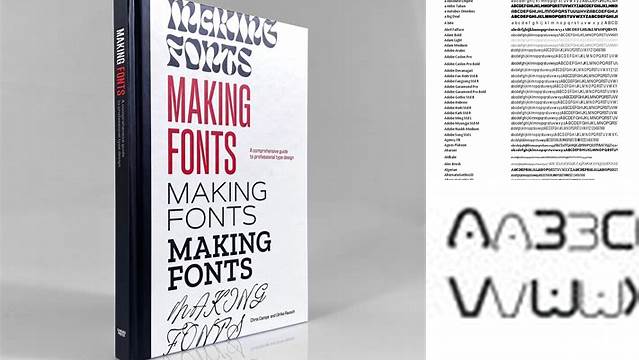
Fonts In Alphabetical Order: A Comprehensive List
Introduction: Exploring the World of Fonts
Hey guys! Let's dive into the fascinating world of fonts, shall we? Fonts are more than just letters; they're the voice of your text, the personality of your design, and the key to grabbing your audience's attention. This comprehensive guide will walk you through an extensive list of fonts in alphabetical order, offering insights into their styles, uses, and the stories they tell. Whether you're a seasoned designer, a budding creative, or just font-curious, this article is your ultimate resource. Understanding the basics of typography and font selection can significantly impact how your message is received. The right font can convey professionalism, elegance, playfulness, or any other desired emotion. From classic serifs to modern sans-serifs, each font has its unique character and purpose. In this guide, we'll not only list fonts alphabetically but also provide context on their typical applications, design principles, and historical backgrounds. So, grab a cup of coffee, get comfortable, and let's embark on this font-astic journey together! We'll uncover hidden gems, revisit old favorites, and explore the subtle nuances that make each font special. By the end of this guide, you'll have a deeper appreciation for the art of typography and be better equipped to make informed font choices for your projects. We'll also touch on practical aspects such as font licensing, pairing fonts effectively, and resources for discovering new fonts. Let's get started and unlock the power of fonts!
A-Fonts
Arial: The Universal Sans-Serif
Arial, a ubiquitous sans-serif font, is often the first name that comes to mind when discussing fonts. Arial is known for its clean and straightforward design, making it highly legible across various platforms and sizes. This font's versatility stems from its neutral appearance, which doesn't impose a strong personality on the text, allowing the content to speak for itself. Arial's history is intertwined with the digital age; it was developed in the 1980s to accompany the rise of personal computers and digital typesetting. Its design is influenced by earlier sans-serif fonts like Helvetica, but it has distinct characteristics that set it apart. Arial's letterforms are slightly wider and fuller, giving it a more open and accessible feel. This font is a workhorse in the design world, frequently used in body text, headings, and digital interfaces. Its widespread availability and compatibility make it a safe and reliable choice for projects ranging from websites to documents to presentations. However, Arial's ubiquity also means it can sometimes be perceived as generic or lacking in character. Designers often seek alternatives to Arial to inject more personality and visual interest into their work. Despite this, Arial remains a staple due to its readability and broad support across different systems. When choosing Arial, consider its strengths: clarity, neutrality, and universal accessibility. It's an excellent option when the message's legibility and clarity are paramount. While it may not be the most exciting font, its practicality and reliability make it a valuable tool in any designer's arsenal. In summary, Arial is a solid, dependable choice that excels in situations where clarity and cross-platform compatibility are crucial. Its simplicity makes it a blank canvas, allowing the content to shine through without being overshadowed by the font's design.
Avant Garde Gothic: A Geometric Beauty
Avant Garde Gothic is a distinctive sans-serif font characterized by its geometric forms and clean lines. Avant Garde Gothic stands out with its modernist aesthetic, making it a popular choice for logos, headlines, and display typography. This font's origins trace back to the 1970s when it was designed for the logo and magazine of the Avant Garde magazine. Its unique letterforms, featuring perfect circles and straight lines, give it a futuristic and stylish appearance. Avant Garde Gothic exudes a sense of sophistication and precision, making it suitable for projects that require a contemporary and minimalist look. Its geometric shapes lend themselves well to creating strong visual impact, particularly in headlines and branding materials. However, Avant Garde Gothic's distinctive style may not be ideal for extensive body text, as its geometric forms can become tiring to read in large blocks. Designers often use it sparingly to highlight key elements and create visual interest. The font's various weights and styles offer versatility, allowing designers to create visual hierarchy and add depth to their designs. Its condensed versions are particularly useful for space-constrained layouts, while its bolder weights command attention. Avant Garde Gothic's impact on graphic design is significant, influencing the development of numerous geometric sans-serif fonts. Its modernist aesthetic continues to resonate with designers who seek a clean and contemporary look. When using Avant Garde Gothic, consider its geometric nature and how it interacts with other design elements. It pairs well with fonts that offer contrast, such as classic serif fonts or more organic sans-serifs. In conclusion, Avant Garde Gothic is a stylish and impactful font that's perfect for projects where a modern, geometric aesthetic is desired. Its unique letterforms and clean lines make it a standout choice for logos, headlines, and display typography.
B-Fonts
Bebas Neue: The Tall and Handsome Sans-Serif
Bebas Neue is a popular sans-serif font celebrated for its tall and narrow letterforms, exuding a modern and streamlined aesthetic. Bebas Neue's distinct vertical emphasis makes it ideal for headlines and titles, where its height commands attention and creates a strong visual impact. Initially designed as a free font, Bebas Neue has gained widespread recognition and is now a favorite among designers seeking a contemporary, condensed typeface. Its clean lines and geometric shapes give it a sophisticated appearance, making it suitable for a wide range of applications, from web design to print materials. Bebas Neue's narrow width allows for efficient use of space, making it particularly useful in layouts where maximizing content within a limited area is crucial. This font's versatility is further enhanced by its various weights, providing options for creating visual hierarchy and adding depth to designs. Its bold weights make headlines pop, while its lighter weights offer a more subtle and elegant touch. Bebas Neue's widespread adoption is a testament to its timeless appeal and practical design. It's often used in branding, advertising, and editorial design, where its modern aesthetic aligns well with contemporary trends. When pairing Bebas Neue with other fonts, consider using a more contrasting typeface for body text, such as a classic serif or a rounded sans-serif. This contrast helps to create visual interest and improves readability. In conclusion, Bebas Neue is a stylish and functional font that excels in headlines and titles. Its tall, narrow letterforms and modern aesthetic make it a go-to choice for designers looking to create a strong visual impact. Its widespread availability and versatility further solidify its position as a valuable asset in the design world.
Bodoni: The Elegant Serif with Dramatic Flair
Bodoni is a classic serif font renowned for its dramatic contrast between thick and thin strokes, giving it an air of elegance and sophistication. Bodoni stands out with its high contrast and sharp serifs, making it a popular choice for fashion magazines, branding, and display typography. This font's history dates back to the late 18th century when it was designed by Giambattista Bodoni, an Italian typographer. Bodoni's letterforms are characterized by their precise and geometric shapes, reflecting the neoclassical style of the time. Its elegance and refinement make it particularly well-suited for luxury brands and high-end publications. However, Bodoni's high contrast can sometimes pose readability challenges, especially in smaller sizes or on screens. Therefore, it's often used sparingly, primarily for headings and titles where its visual impact can be fully appreciated. The font's various weights and styles offer flexibility, allowing designers to create nuanced designs with a touch of sophistication. Its bold weights command attention, while its lighter weights offer a delicate and refined appearance. Bodoni's influence on typography is undeniable, inspiring countless modern interpretations and adaptations. Its timeless appeal ensures its continued relevance in the design world. When using Bodoni, consider its high contrast and how it interacts with other design elements. It pairs well with simpler, less ornate fonts that provide a visual balance. In conclusion, Bodoni is an exquisite font that embodies elegance and sophistication. Its dramatic contrast and sharp serifs make it a standout choice for projects where a touch of luxury and refinement is desired. Its timeless appeal and historical significance further enhance its value as a classic typeface.
C-Fonts
Calibri: The Modern Sans-Serif Default
Calibri, a modern sans-serif font, is widely recognized as the default font in Microsoft Office applications. Calibri's rounded stems and soft curves give it a contemporary and approachable feel, making it suitable for a wide range of applications. This font was designed to replace Times New Roman as the default in Microsoft Office, reflecting a shift towards more modern and screen-friendly typefaces. Calibri's design emphasizes readability on digital displays, with subtle details that enhance clarity and legibility. Its rounded terminals and slightly condensed proportions contribute to its efficient use of space, making it a practical choice for both body text and headlines. Calibri's versatility extends to various design contexts, from documents and presentations to websites and user interfaces. Its neutral and unassuming character makes it a reliable choice for conveying information clearly and effectively. While it may not be the most distinctive font, its widespread use and familiarity ensure its accessibility and readability across different platforms. Calibri's various weights and styles offer flexibility, allowing designers to create visual hierarchy and add emphasis to key elements. Its italic style is particularly well-crafted, providing a subtle yet effective way to differentiate text. Calibri's impact on digital typography is significant, shaping the way we interact with text on screens. Its clean and modern aesthetic has made it a popular choice for both personal and professional use. When using Calibri, consider its neutrality and how it can complement other design elements. It pairs well with fonts that offer contrast, such as classic serifs or more expressive sans-serifs. In conclusion, Calibri is a dependable and versatile font that excels in digital environments. Its modern design, readability, and widespread availability make it a valuable tool for clear and effective communication. Its neutrality allows it to blend seamlessly into various design contexts, making it a reliable choice for any project.
Century Gothic: A Geometric Sans-Serif Revival
Century Gothic is a geometric sans-serif font that exudes a clean and contemporary aesthetic, drawing inspiration from the early 20th-century Futura typeface. Century Gothic's circular and geometric letterforms give it a distinct modernist character, making it a popular choice for headlines, logos, and display typography. This font's design is characterized by its even strokes and minimal contrast, contributing to its clean and legible appearance. Century Gothic's roots can be traced back to the Bauhaus movement, which emphasized functional design and geometric forms. Its simplicity and clarity make it well-suited for projects that require a modern and minimalist look. Century Gothic's geometric shapes lend themselves well to creating strong visual impact, particularly in headlines and branding materials. However, its uniform stroke weight can sometimes make it less suitable for extensive body text, as it may lack the visual rhythm needed for comfortable reading over long periods. Designers often use it sparingly to highlight key elements and create visual interest. The font's various weights and styles offer versatility, allowing designers to create visual hierarchy and add depth to their designs. Its condensed versions are particularly useful for space-constrained layouts, while its bolder weights command attention. Century Gothic's widespread use in corporate branding and advertising reflects its modern and sophisticated appeal. When using Century Gothic, consider its geometric nature and how it interacts with other design elements. It pairs well with fonts that offer contrast, such as classic serif fonts or more organic sans-serifs. In conclusion, Century Gothic is a stylish and impactful font that's perfect for projects where a modern, geometric aesthetic is desired. Its clean lines and modernist character make it a standout choice for logos, headlines, and display typography.
Conclusion: The Font-tastic World Awaits
Alright guys, we've journeyed through the alphabet, exploring a diverse range of fonts, each with its unique personality and purpose. Fonts are the unsung heroes of design, capable of transforming the look and feel of any project. From the clean lines of Arial to the elegant curves of Bodoni, the choices are endless. Remember, selecting the right font is about more than just aesthetics; it's about conveying your message effectively and creating a lasting impression. We hope this guide has sparked your curiosity and inspired you to experiment with typography. So go ahead, explore the font-tastic world, and let your creativity flow!